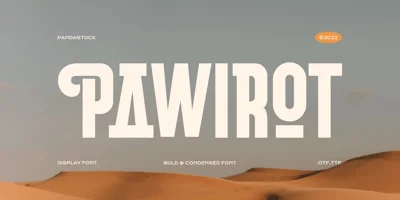
Pawirot Font
Pawirot Font is ideal for cultural organizations, international branding, heritage projects, Southeast Asian businesses, traditional arts promotion, multicultural communications, and cross-cultural design applications. This distinctive typeface brings authentic cultural character and global connectivity to diverse design projects.
Pawirot Font is exciting because it masterfully combines traditional cultural influences with contemporary design principles, featuring unique letterforms that honor cultural heritage while ensuring optimal functionality in modern international design contexts and global communications.
The Pawirot Font family includes multiple weights and cultural styling variations that reflect authentic traditional design elements. This comprehensive collection provides designers with culturally sensitive options for creating meaningful and respectful cross-cultural brand experiences.
Pawirot Font provides access to a culturally crafted typeface that embodies the rich heritage and artistic traditions of Southeast Asian design philosophy. This distinctive font features carefully designed letterforms with cultural authenticity that create immediate connections with traditional craftsmanship and artistic excellence. The typeface showcases balanced proportions and refined details that enhance multicultural communications while maintaining professional functionality and global accessibility. Its cultural character makes it particularly suitable for international organizations and heritage brands that require typography capable of conveying cultural respect, artistic tradition, and authentic global connection. Pawirot Font delivers exceptional cultural impact for applications where generic fonts fail to capture the richness and artistic heritage of traditional design traditions. The font's authentic appeal and cultural aesthetic make it an essential tool for designers working on projects that require respectful representation of cultural diversity and effective cross-cultural communication that honors tradition while embracing contemporary design excellence.